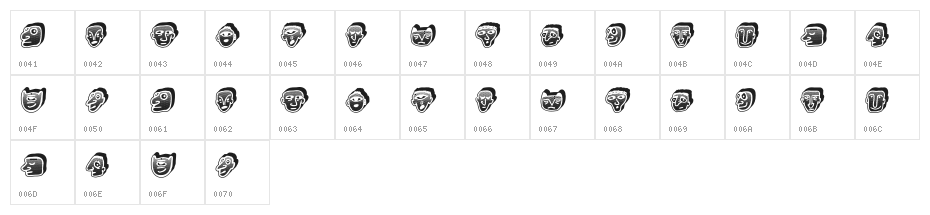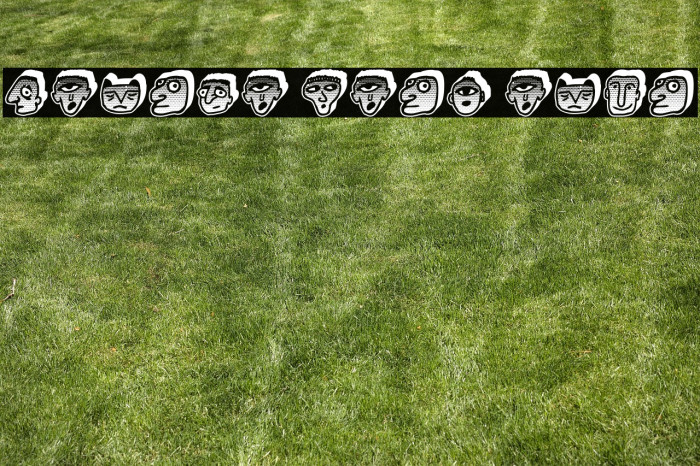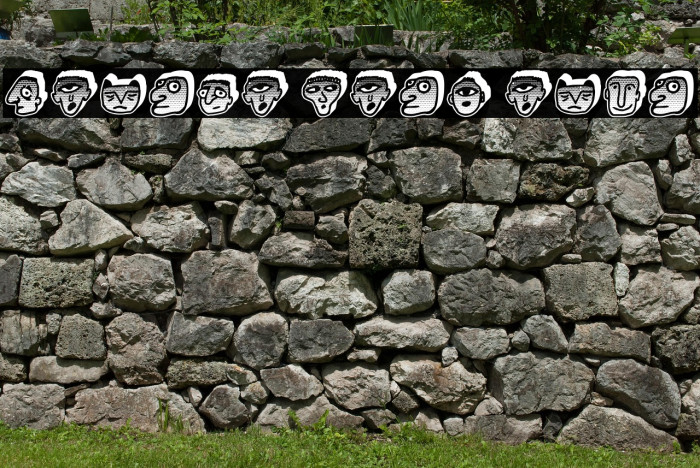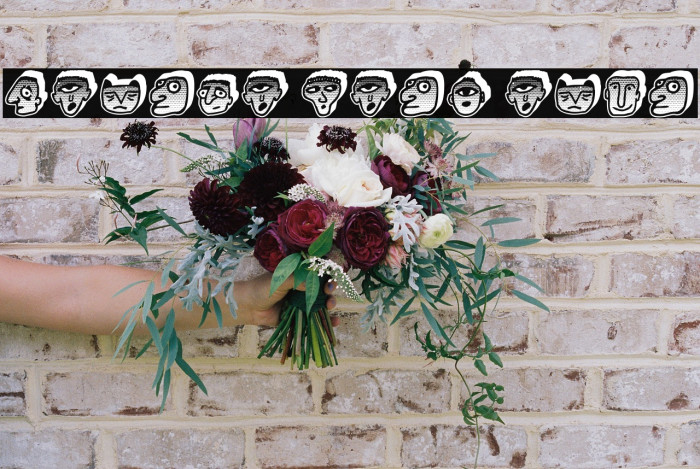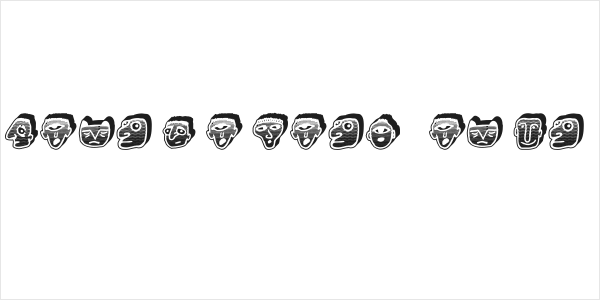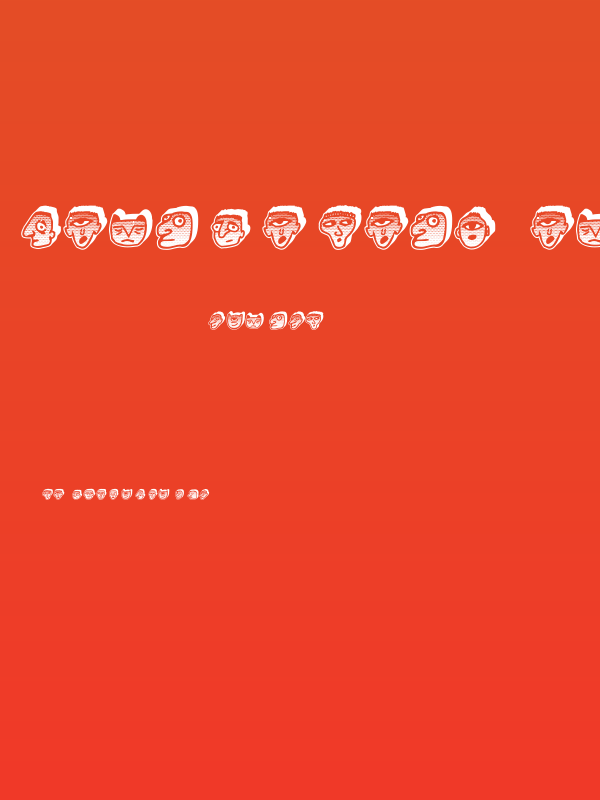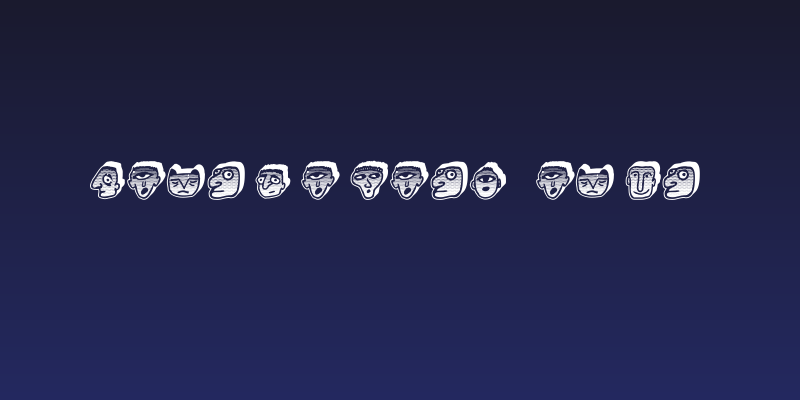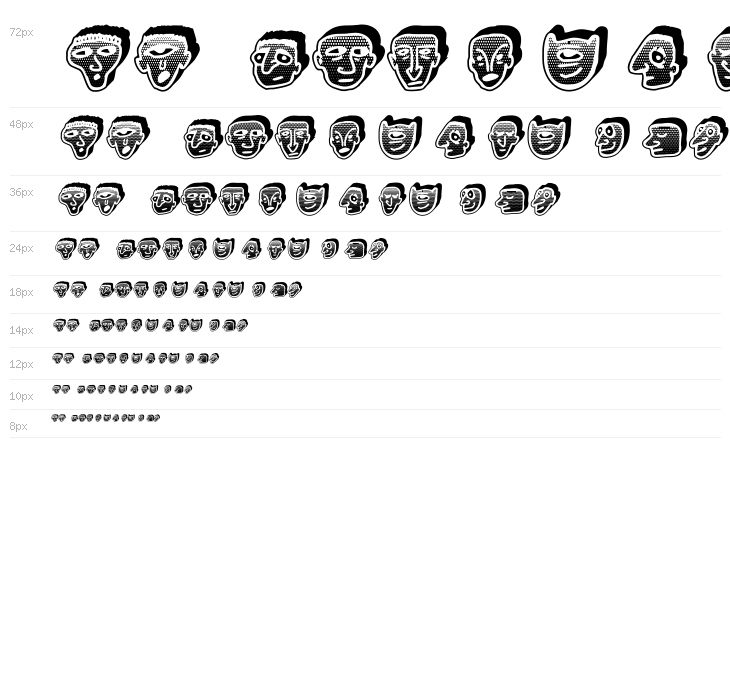
Negative Heads Regular Font
Negative Heads Regular Description
This font features a unique and playful design where each character is represented by a stylized face. The faces are cartoonish and expressive, with bold outlines and a halftone pattern filling. The characters are distinct and easily recognizable, making them suitable for creative and artistic projects. The font's whimsical nature adds a sense of fun and humor, making it ideal for informal and lighthearted applications. The exaggerated facial features and varied expressions contribute to its overall charm and appeal.
| Overall Style | Whimsical |
| Use Case | Logos, Posters, Creative projects |
| Proposed Projects | Ideal for children's books, comic strips, playful branding, and creative posters. |